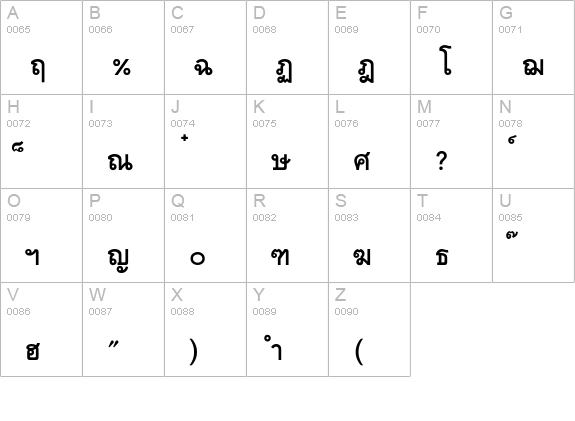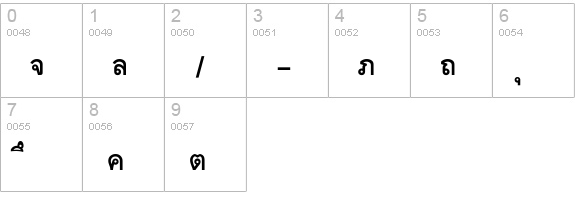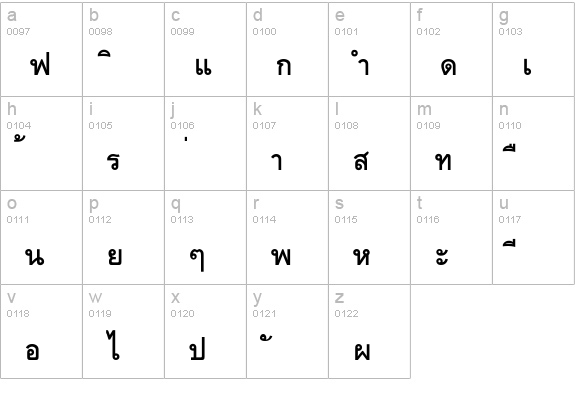
TATM001 Font Details
Introducing TATM001, a stunning font that embodies elegance and versatility. With its sleek and modern design, this font is perfect for any creative project, whether it be designing a captivating logo, crafting eye-catching promotional materials, or simply adding a touch of sophistication to your personal documents. TATM001 is not only visually appealing, but it also offers incredible functionality. Its wide range of characters and glyphs allows for seamless integration into various languages and typographic styles, ensuring that your message is effectively communicated to a diverse audience. One of the most remarkable features of TATM001 is that it is completely free. Yes, you read that right! This incredible font is freely available to download at FontsMarket.com. So, whether you are a professional designer or a casual enthusiast, you can enjoy the benefits of this remarkable font without breaking the bank. The creators of TATM001 have put immense effort into crafting a font that is not only aesthetically pleasing but also user-friendly. Its clean lines and legible letterforms make it easy to read, ensuring that your message is conveyed effortlessly, no matter the medium. TATM001 is truly a font that stands out from the crowd. Its unique and sophisticated style will captivate your audience and leave a lasting impression. Whether you are looking to elevate your branding, enhance your digital presence, or simply add a touch of elegance to your personal projects, TATM001 is the perfect choice. So, don't miss out on this fantastic opportunity to enhance your creativity and elevate your design projects. Download TATM001 for free now at FontsMarket.com and unlock a world of possibilities.